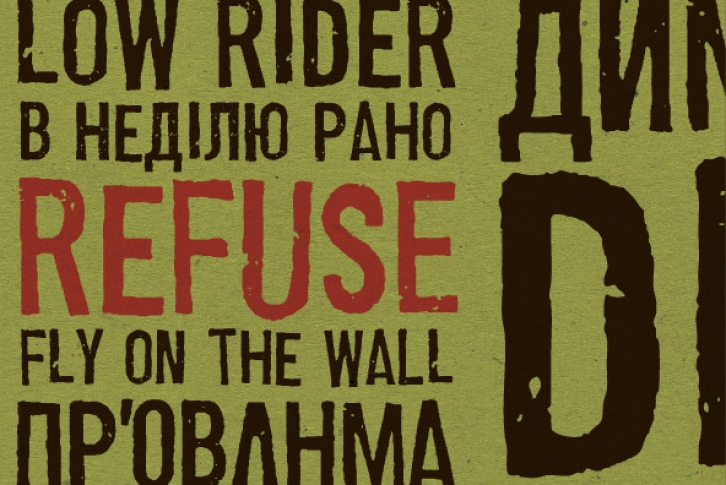
Refuse Pro is a stamp-like distressed sans serif typeface based on information stamped on the side of packaging. Refuse has an extended Latin, extended Cyrillic and Greek alphabet so it will work with most languages in Europe and the Americas.